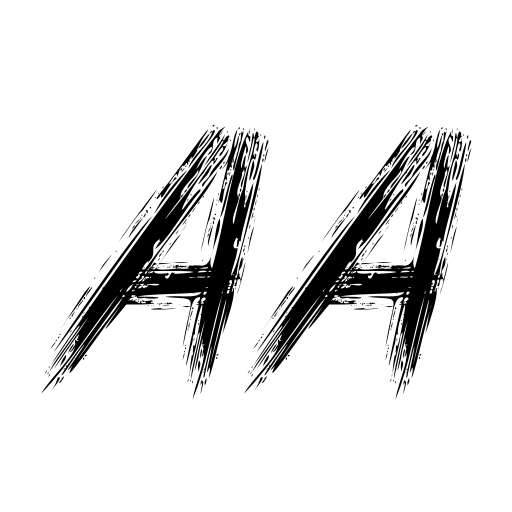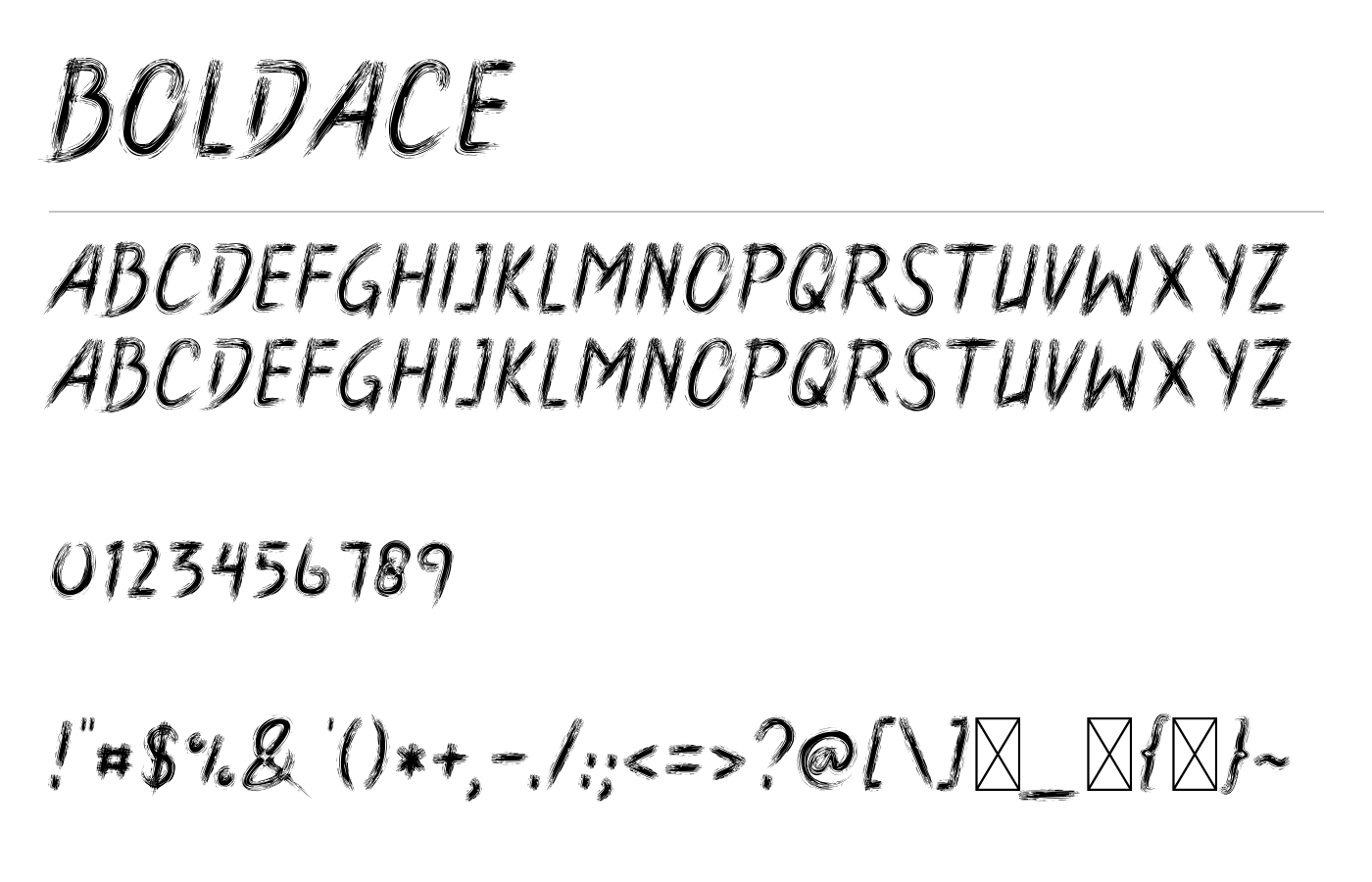
Boldace is a dynamic sans serif font with a rough, hand-drawn brushstroke style that adds energy and movement to any design. Its condensed, airy letterforms and tall x-height create a striking, casual look perfect for bold headlines, posters, or creative branding where a vibrant and artistic feel is desired. This font brings a playful, edgy personality that works well for modern, urban, and expressive visual projects.
Boldace Font
About Boldace Font